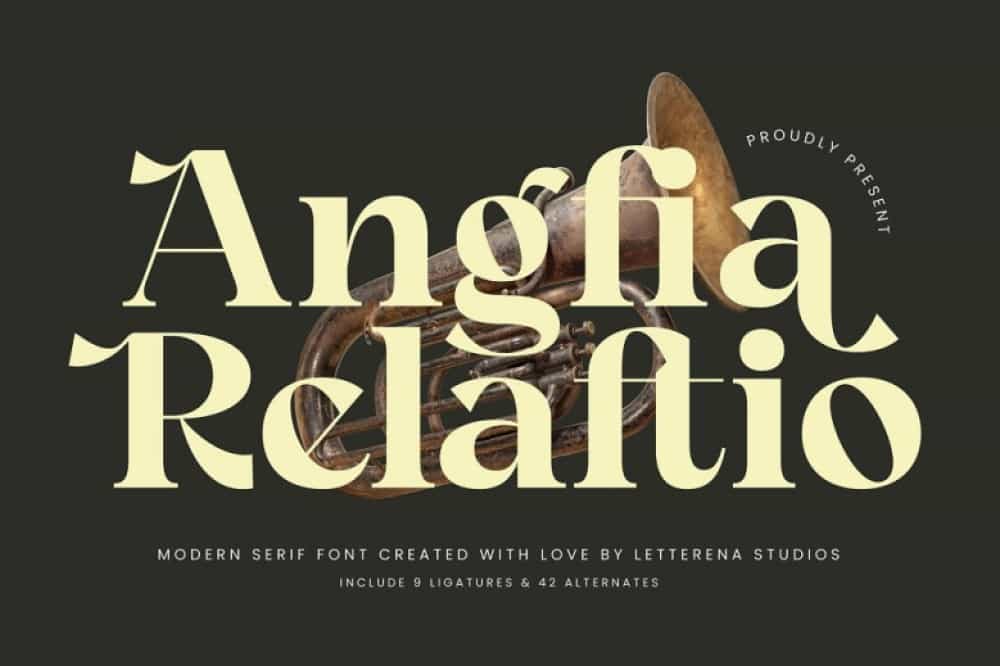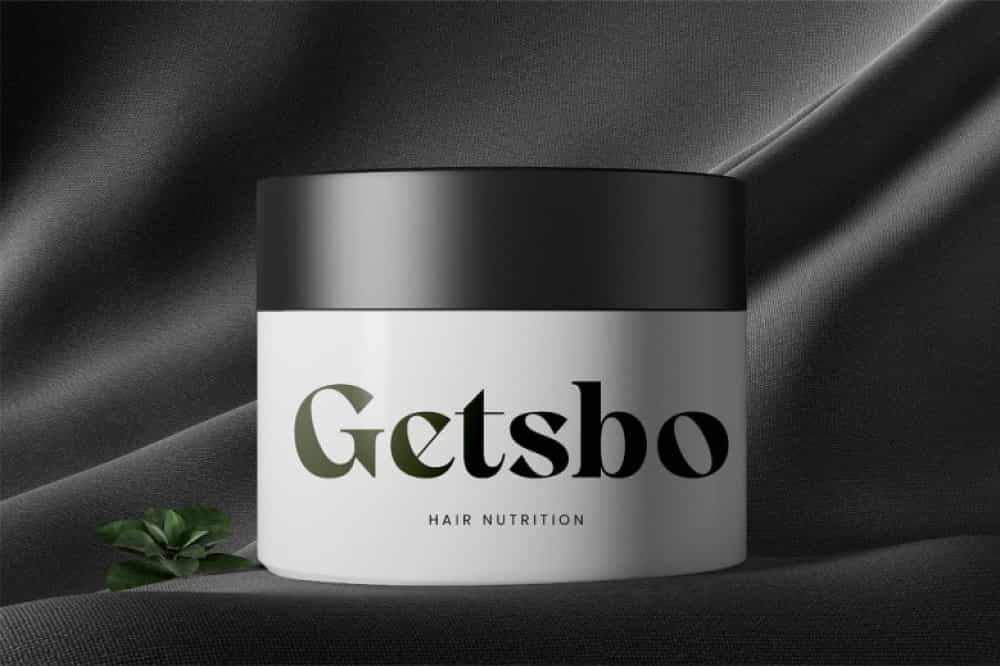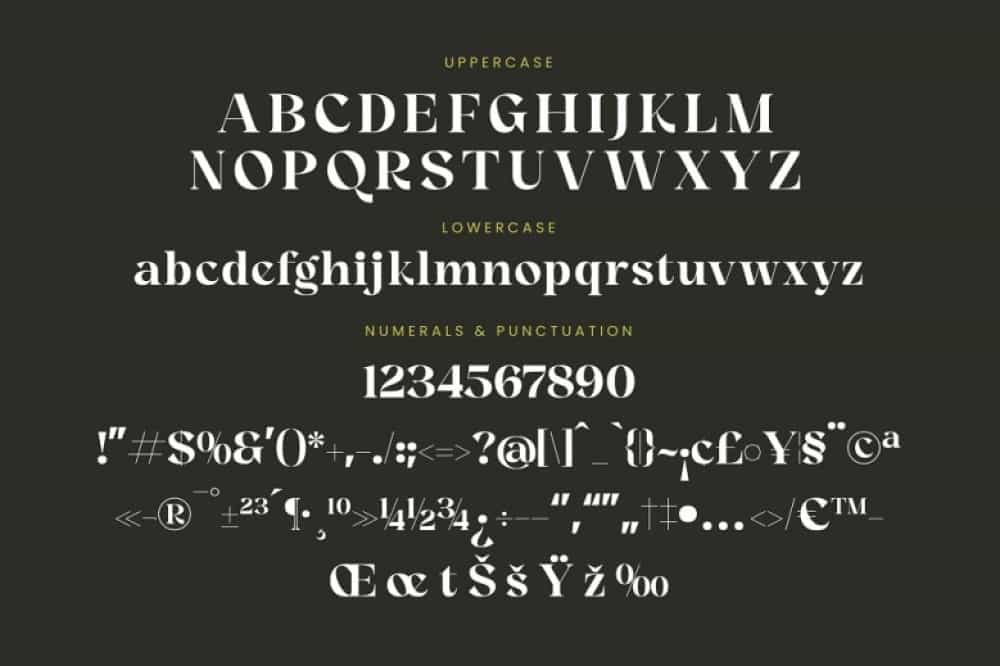
Angfia Relaftio is a modern serif font, from Letterena, It’s suitable for any projects such as: logos, packaging projects, home textiles, product design, mugs, quotations, posters, shopping bags, t-shirts, book covers, name card, invitation cards, greeting cards, labels, special events, and all your other elegant luxury projects that require a Serif touch.